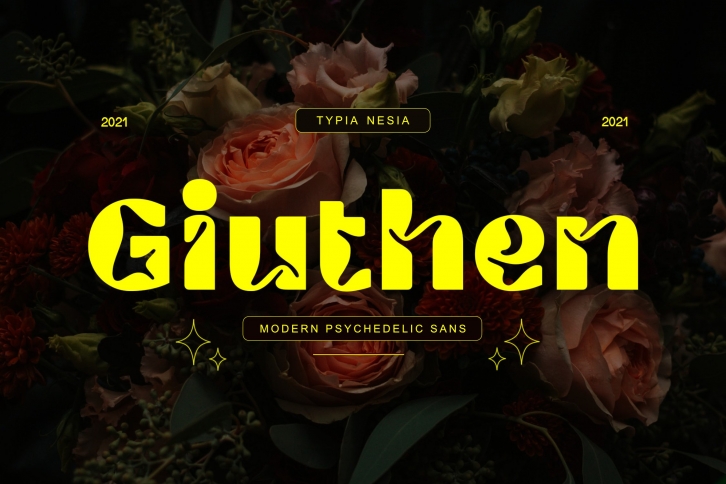
Giuthen - Modern Psychedelic Black Display Sans Serif - Expressive Brutalist Font
Giuthen Sans Serif Font is perfect for your up coming projects. Such as logo branding, editorial design, vintage or retro poster, stationery design, fashion, sport and game design, startup industry, music poster, blog design, website, apps design, UI UX, modern advertising design, editorial, magazine, book/cover title, special events and any more.